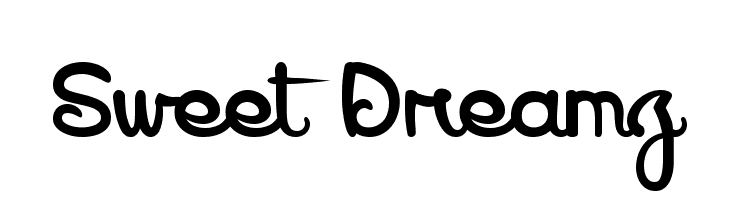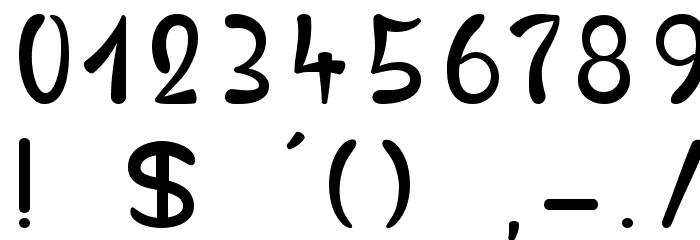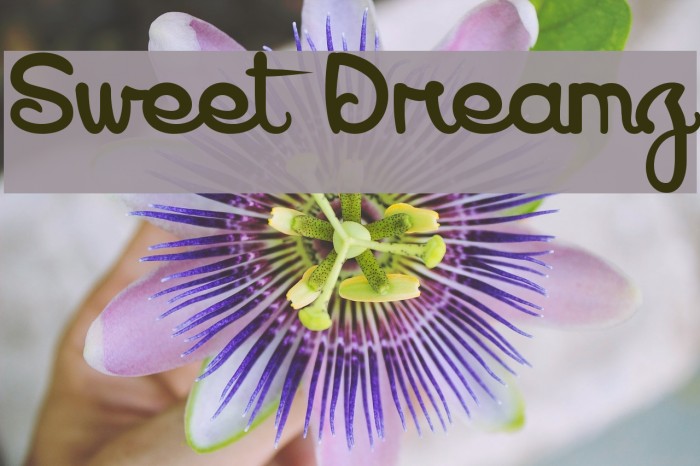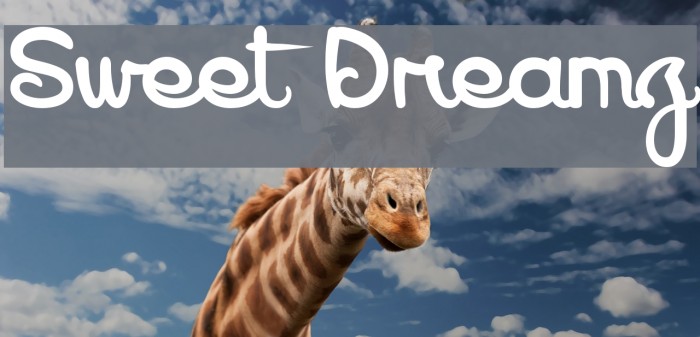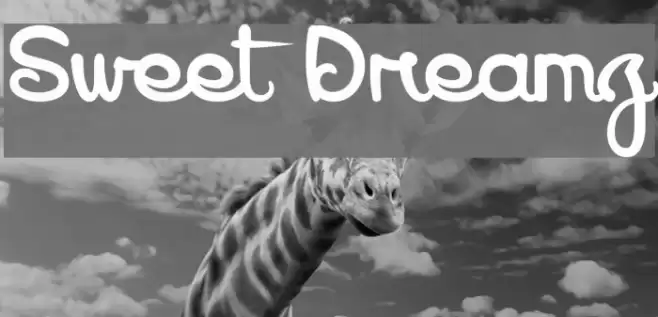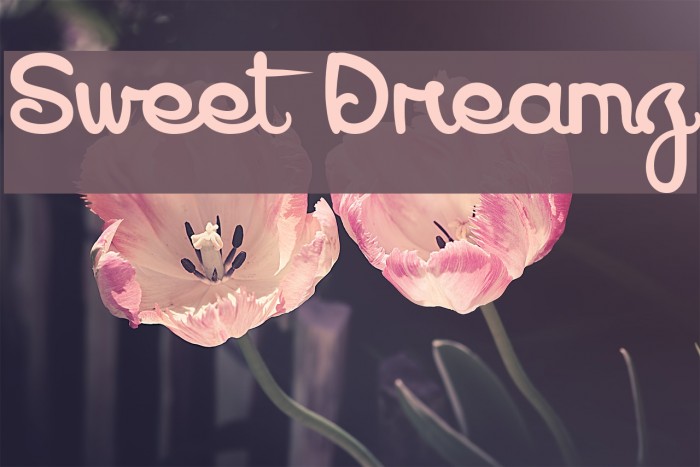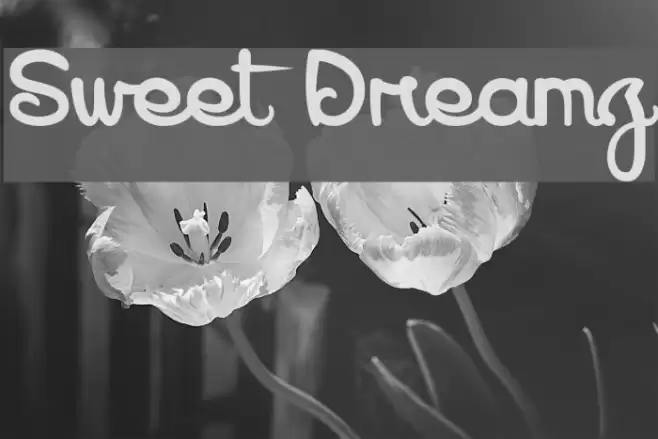
Sweet Dreamz Font
This playful and whimsical font features a handwritten style with a smooth, flowing appearance. The characters are rounded and slightly irregular, giving a casual and friendly vibe. The uppercase letters are bold and prominent, while the lowercase letters have a charming looped design, particularly noticeable in characters like 'g', 'j', and 'y'. The numbers maintain the same playful style, with a consistent stroke width throughout. Special characters are creatively integrated, maintaining the overall aesthetic. This font is ideal for projects that require a personal touch or a fun, informal look.
A playful, handwritten font with a smooth, flowing style and rounded characters.
• Proposed Projects: Ideal for greeting cards, children's books, playful branding, and social media graphics.
• Category: Handwritten
• Overall Style: Casual, Playful
• Use Case: Logos, Headlines, Informal Text